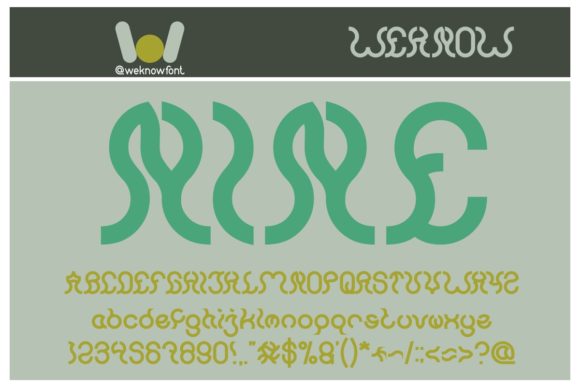
In the digital age, captivating content is the key to unlocking engagement. Nine Font, a striking display typeface by weknow, is your secret weapon to make your ideas shine brighter than ever before. Crafted with uniqueness and charm, this font is a journey into the realm of creativity, designed to make your words dance and your designs soar.
Imagine your YouTube titles adorned with Nine Font, radiating an aura of boldness and individuality, drawing viewers in like moths to a flame. The possibilities are endless: eye-catching headlines, mesmerizing logos, captivating social media posts, and unforgettable branding that leaves a lasting impression. With Nine Font by your side, the world is your canvas, and your imagination is the brush.
Take your creative projects to new heights with Nine Font. Let your words take center stage, captivating your audience with every stroke, every curve, every line. This font is not just a tool; it's a gateway to a world where creativity knows no bounds. Unleash your inner artist and let Nine Font transform your ideas into masterpieces.